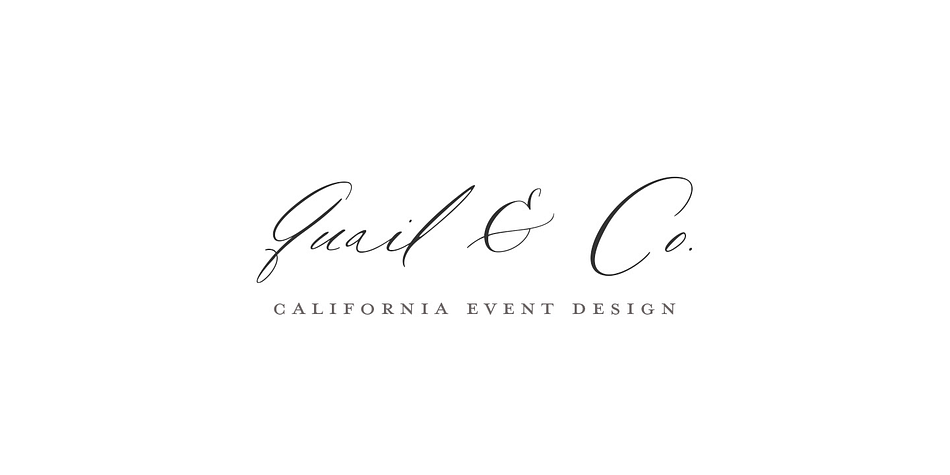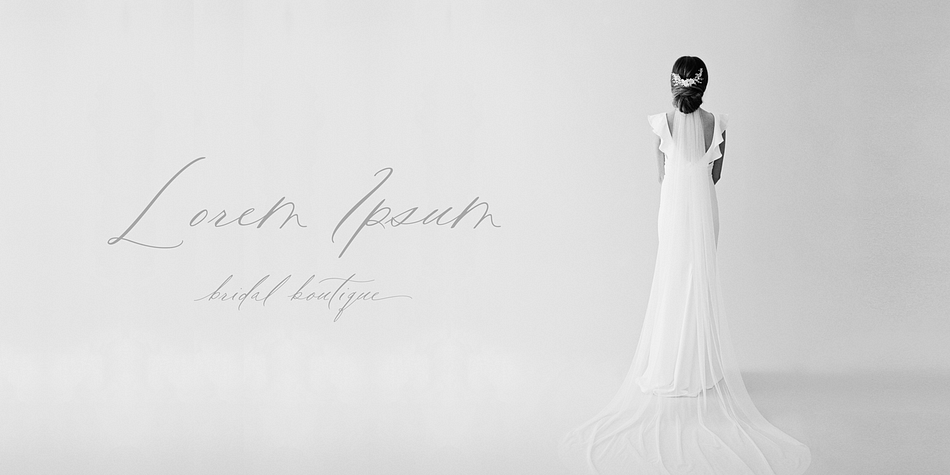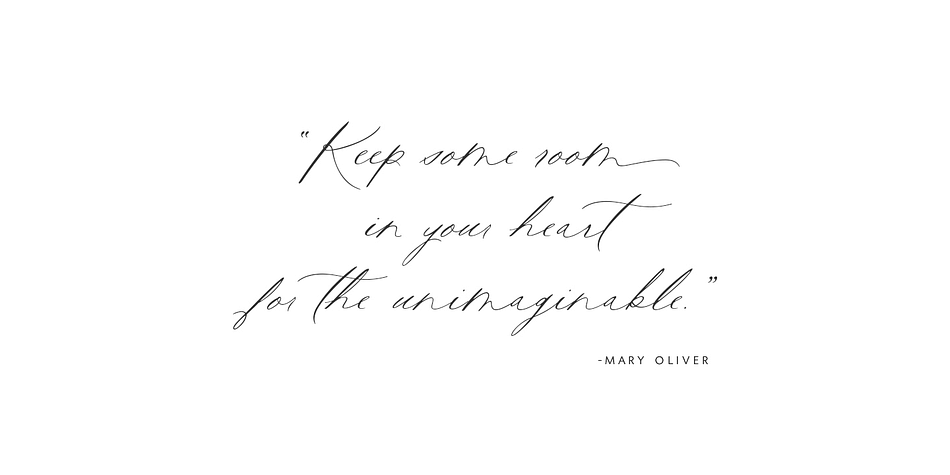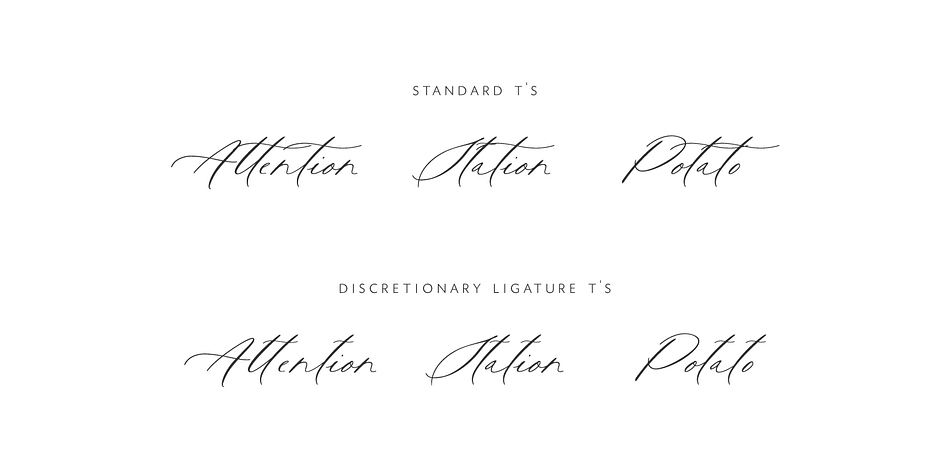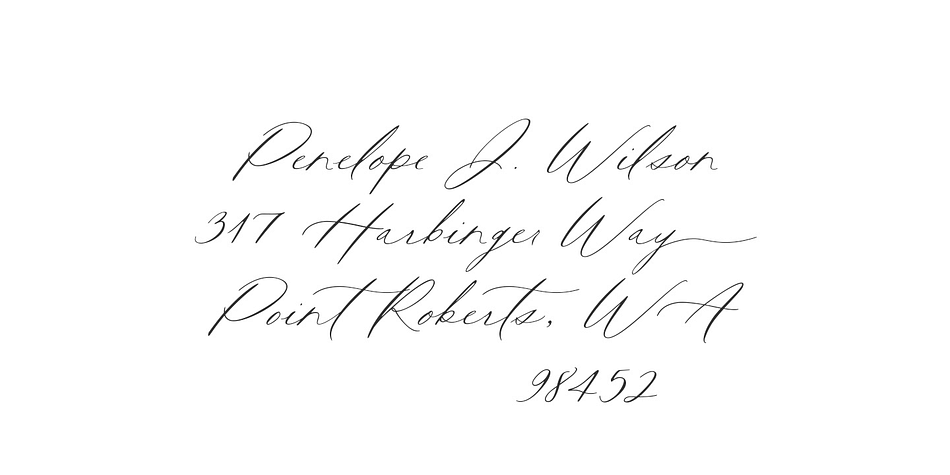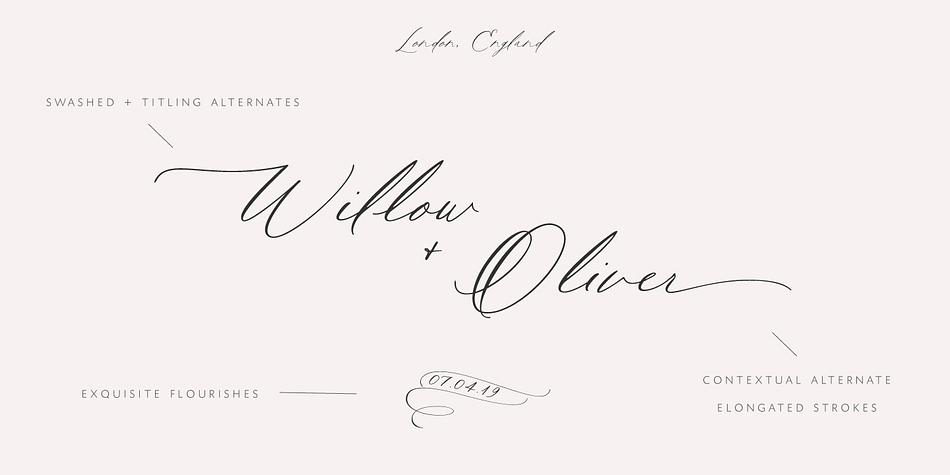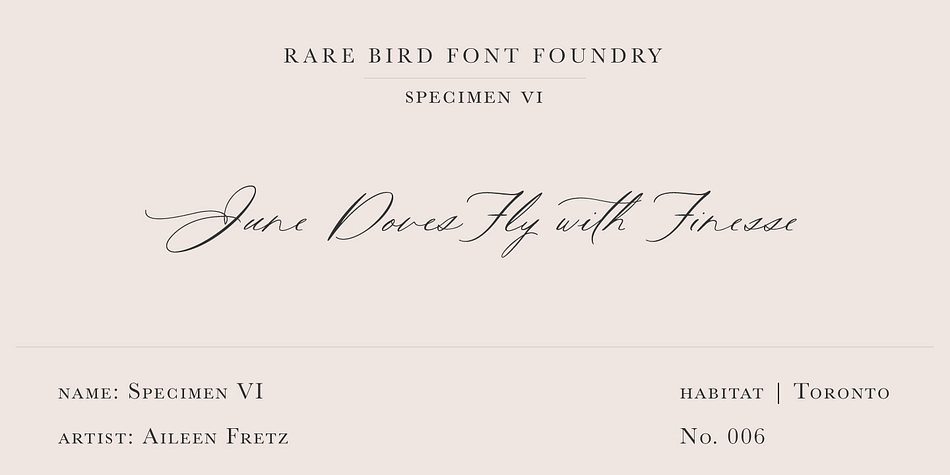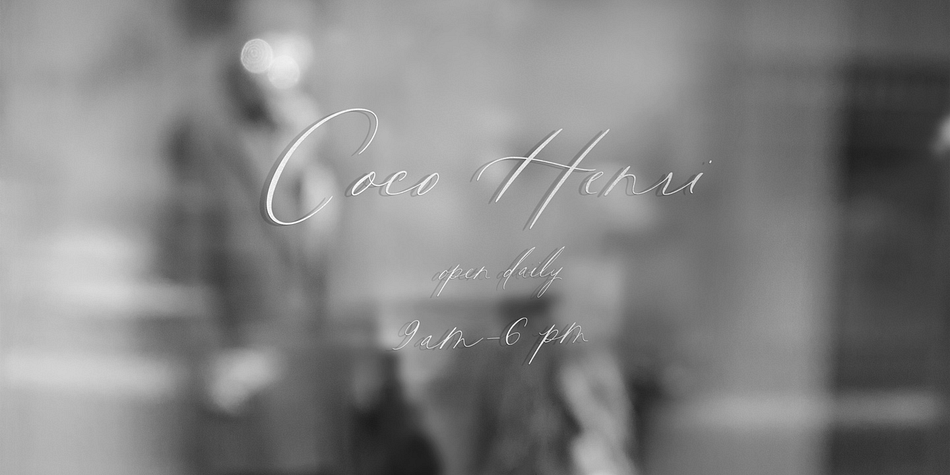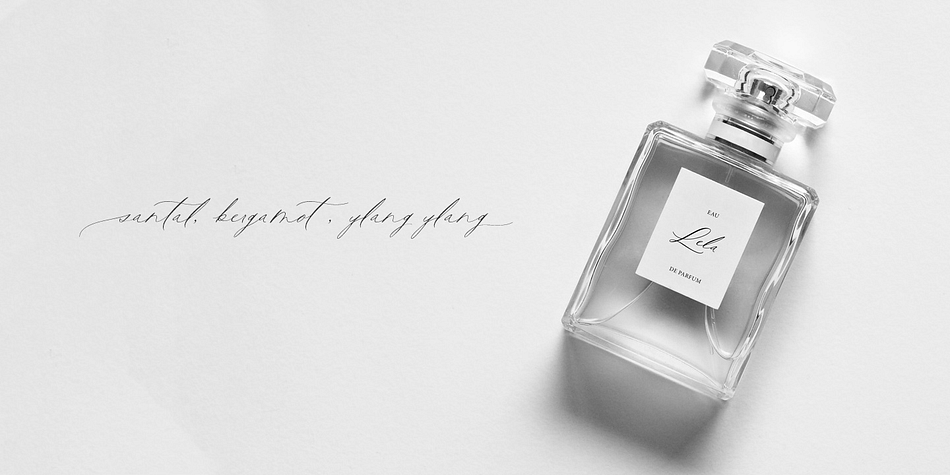
Designed by Rare Bird Font Foundry, Rare Bird Specimen VI is a modern calligraphy font published by Rare Bird Font Foundry.
Specimen VI is a refined hand by artist Aileen Fretz of Plume Calligraphy: thoroughly modern yet absolutely timeless. We have our sights set on this one becoming an instant classic.
OBSERVATIONS
Specimen VI takes its inspiration from the old world, while remaining thoroughly contemporary. It is unique while maintaining legibility.
DEFINING CHARACTERISTICS
At 2,580 characters, we dare say it is one of the most robust script fonts on the market today. The font includes extensive Opentype programming that authentically replicates Aileen’s unique handwriting pattern. As you type, watch the letters automatically adjust between connected and disconnected forms. Specimen VI also features formal titles, prepositions, social media wordart, and web navigation wordart, serif and sans serif Roman numerals, in and out-stroked letterforms at beginning and end of words, multiple alternate lowercase t cross-strokes, realistic double-letter ligatures, seamlessly connecting calligraphic letters, multiple styles of alternate capital letters, including swashes, and basic Latin encoding. Specimen VI is a typesetters’ dream.
POTENTIAL SIGHTINGS
In the pages of your favorite wedding tome; the signage, robe embroidery, and dinner menus of that coveted boutique hotel on the Italian Riviera, the labels of an artisanal hand-poured candle line, your new favorite Rosé, hand-crafted Belgium chocolate truffles, the indie cosmetic line fit for royalty, in any instance that you may be in need of a refined modern script.